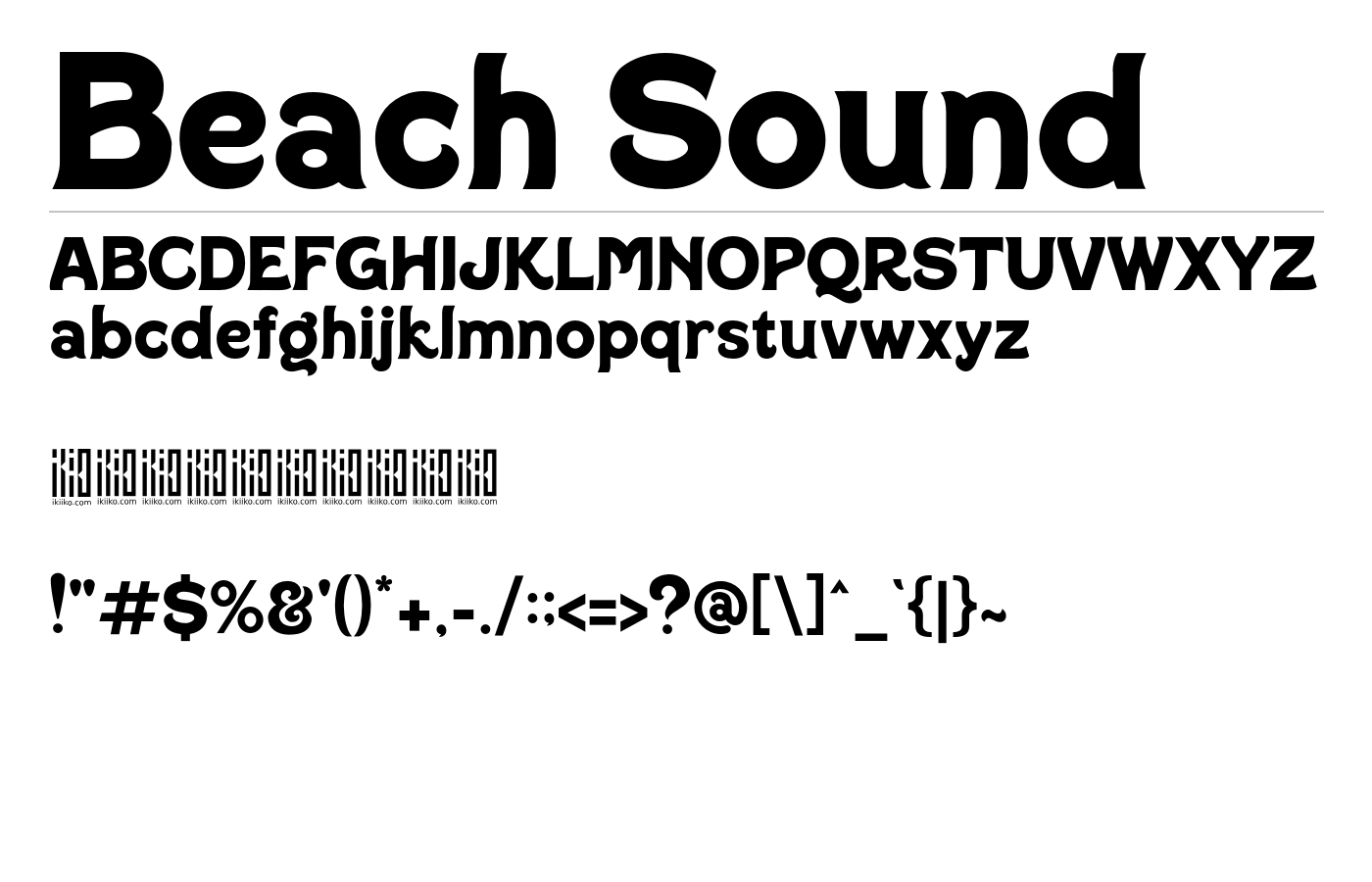
Beach Sound is a bold, playful serif font with a strong presence and unique character shapes that give it a friendly, almost whimsical feel. Its thick strokes, moderate contrast, and rounded serifs combine to create a vintage-inspired yet modern look, making it ideal for eye-catching headlines, posters, and branding that seeks a warm, approachable vibe. This font works well in creative and casual contexts where you want to convey personality without sacrificing readability.
Beach Sound Font